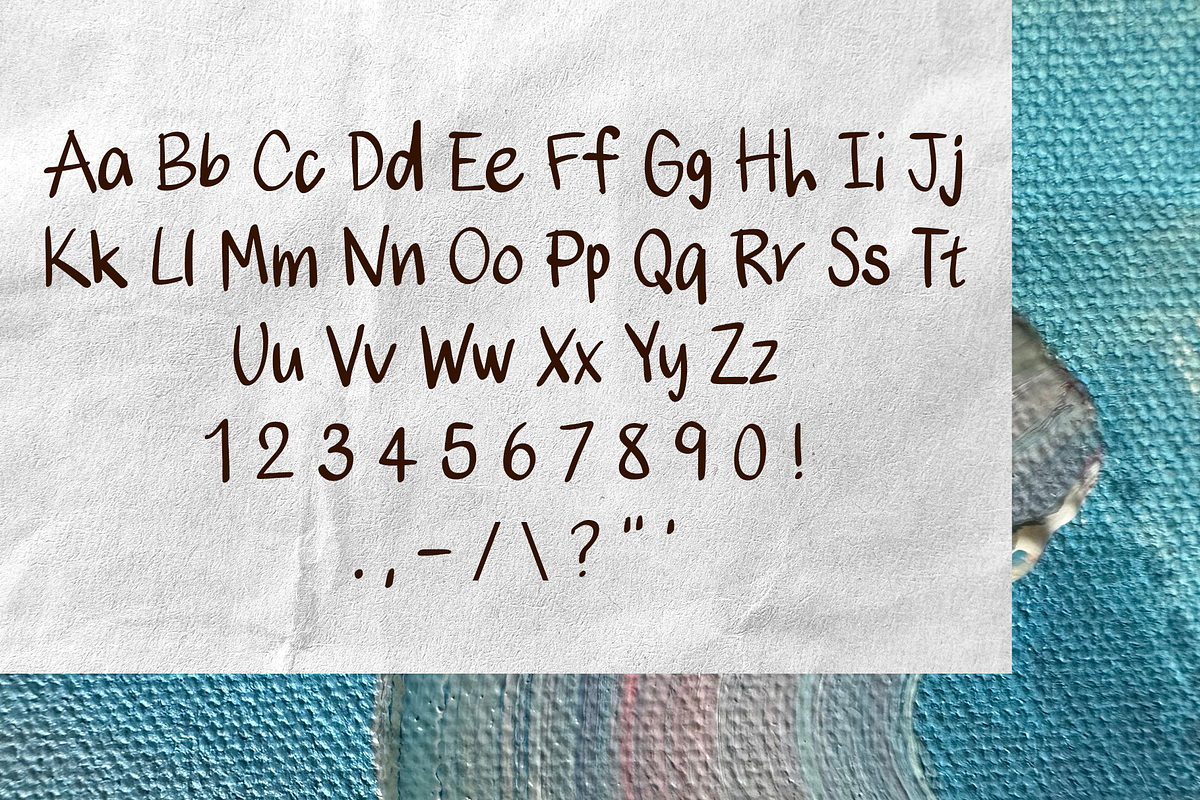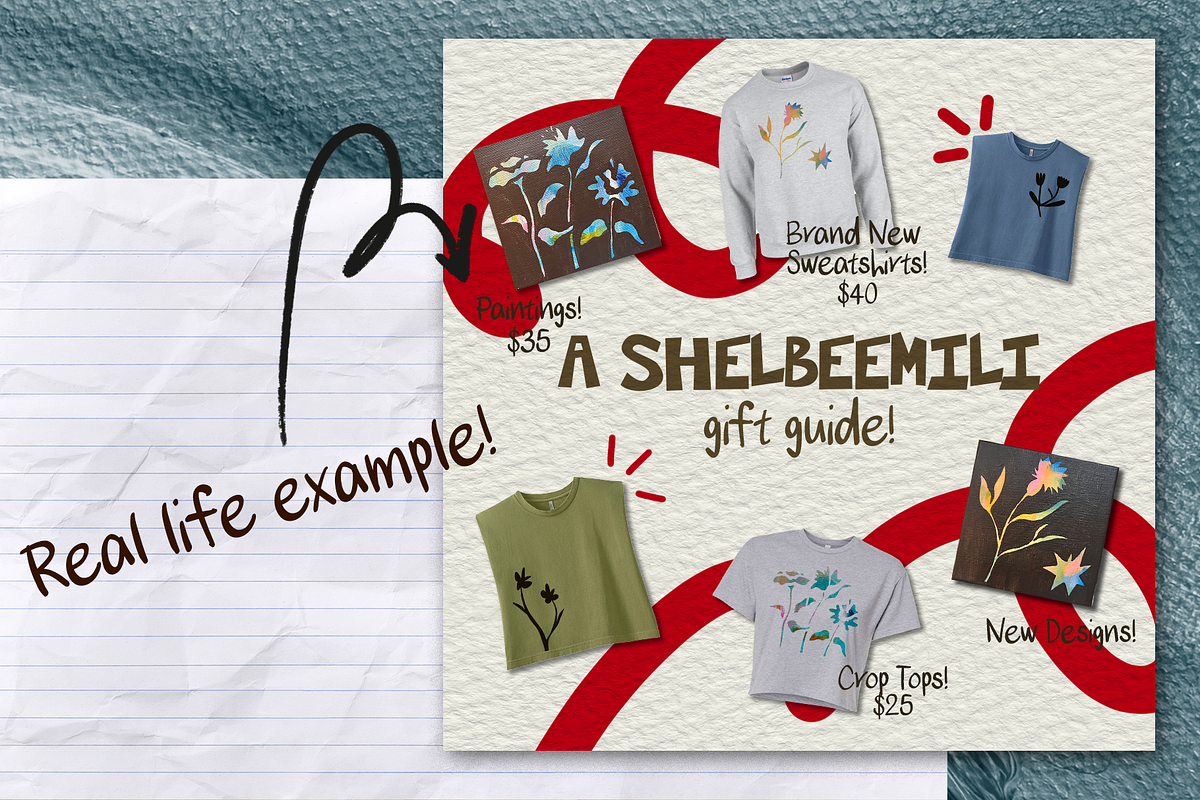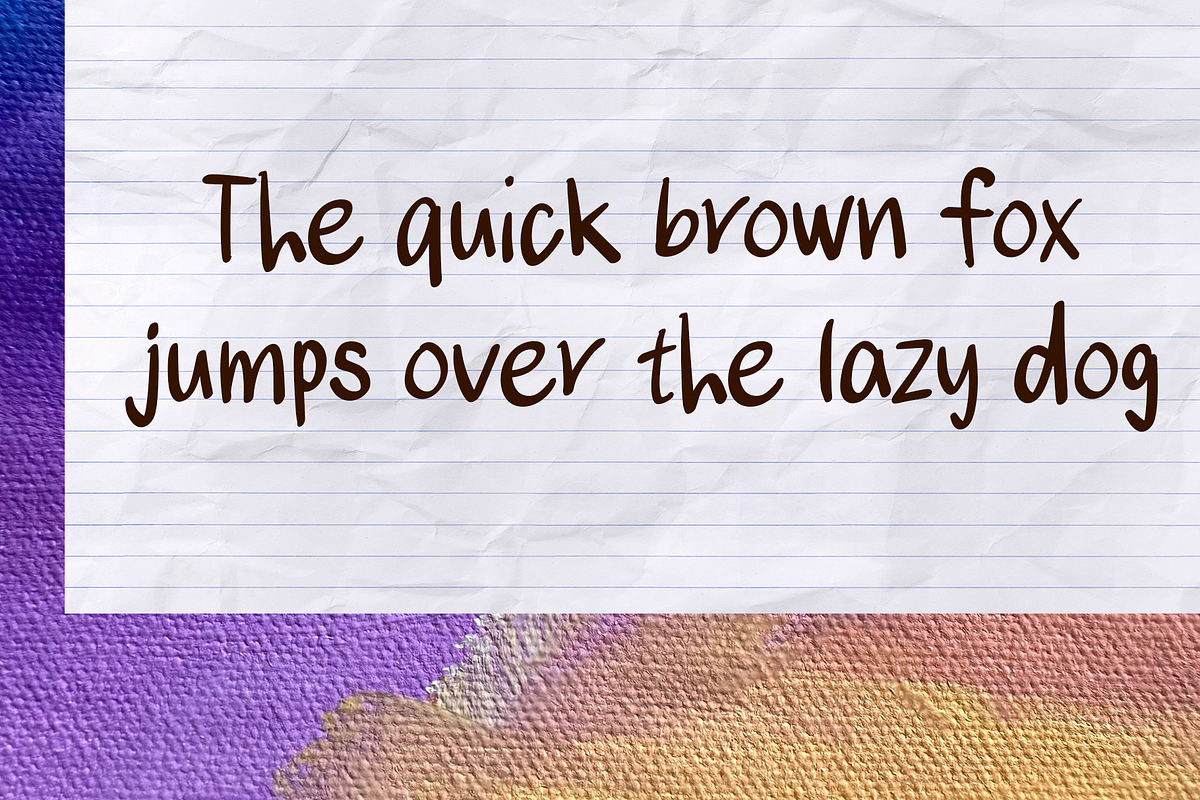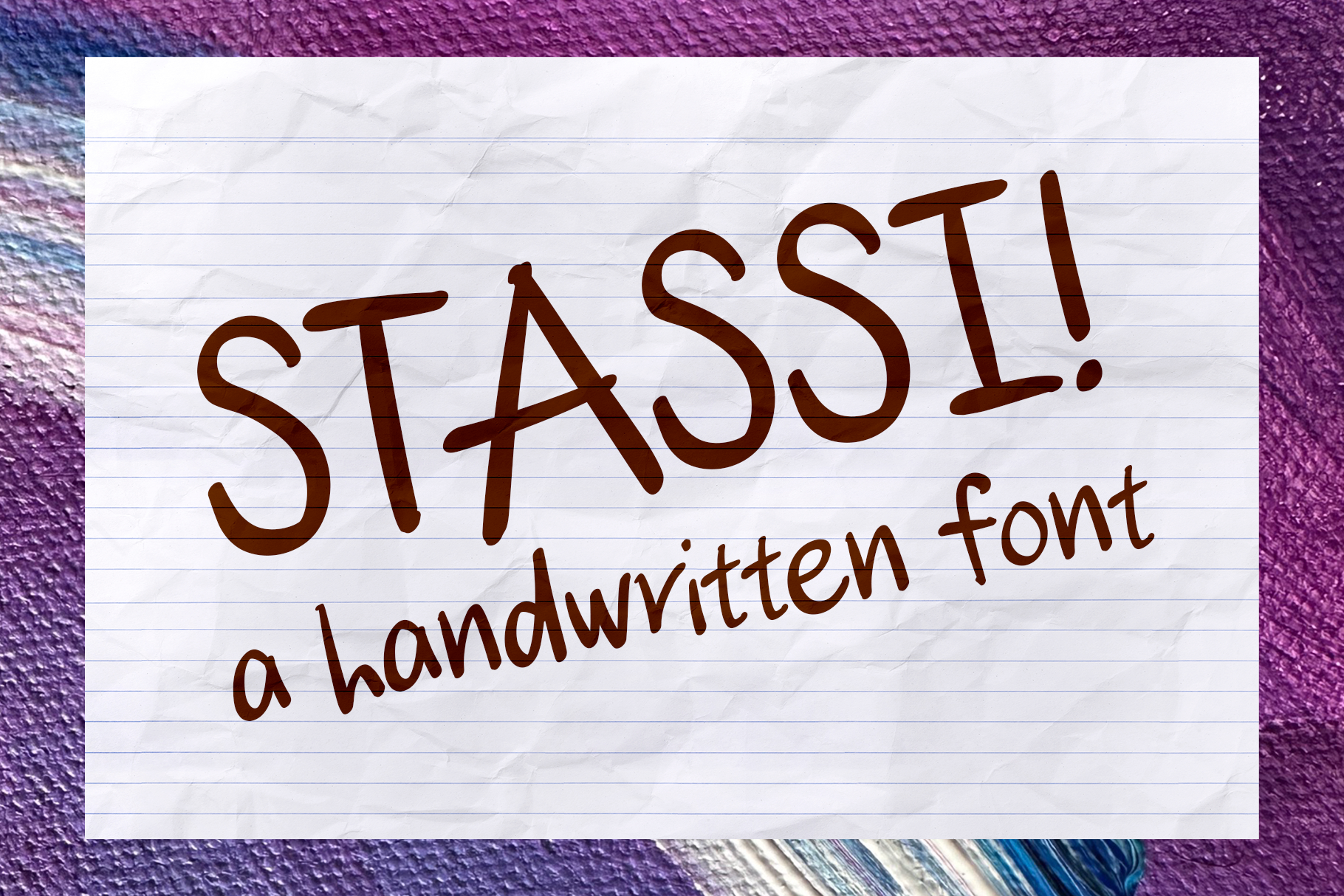
Stassi - A Handwritten Font
Meet Stassi, the bold and beautifully imperfect handwritten font designed to bring a little personality and charm to your creative projects. With its organic flow and playful quirks, Stassi feels like a note scribbled by hand—raw, authentic, and full of character. It’s not just a font; it’s a vibe.
Perfect for branding, packaging, social media graphics, wedding invites, or that personal project you’ve been dreaming up, Stassi adds a human touch that instantly draws the eye. Its natural imperfections make every design feel approachable, warm, and uniquely yours.
Whether you’re creating a bold logo, a whimsical greeting card, or a standout Instagram post, Stassi is here to help you make an impression that feels fresh, creative, and effortlessly stylish.
What you’ll love about Stassi:
- A versatile, hand-drawn style perfect for both casual and elevated designs
- A full set of uppercase and lowercase letters, numbers, and punctuation
- Great readability without losing its personality
Let Stassi add that perfectly imperfect, organic feel to your next project. Your designs deserve a little magic—Stassi delivers it with every stroke.